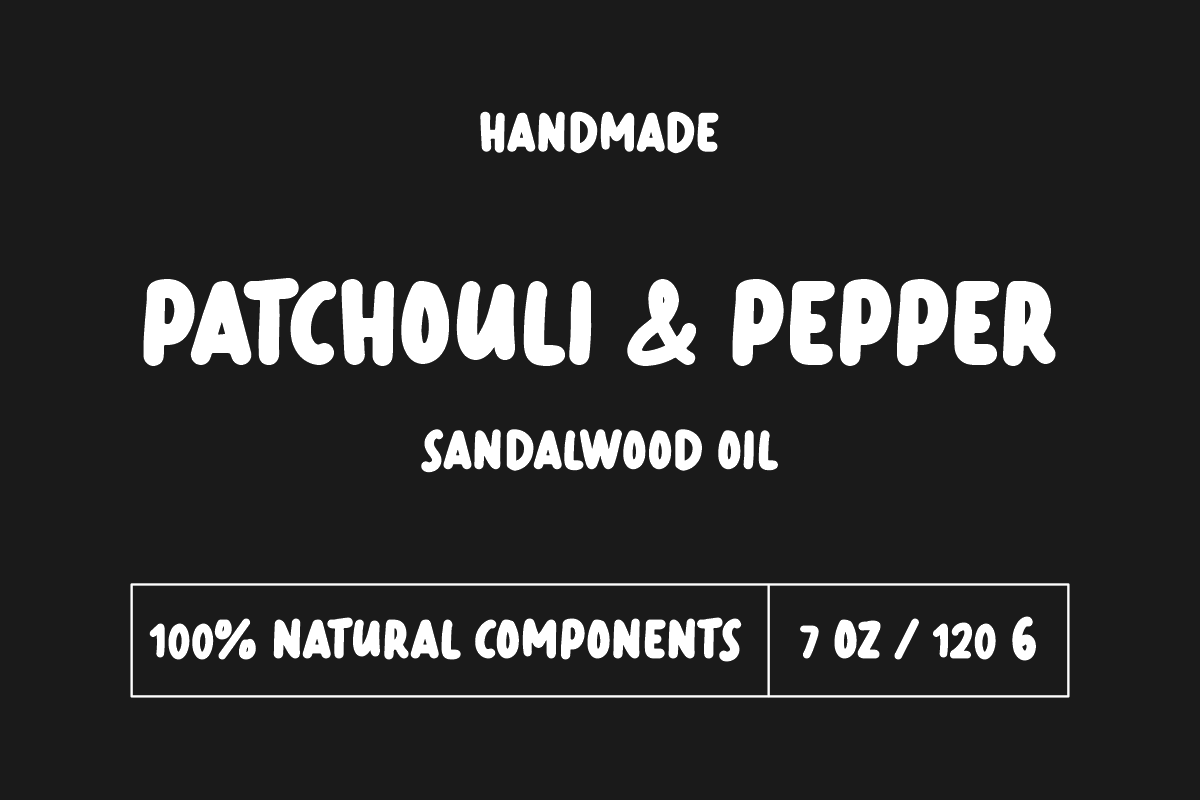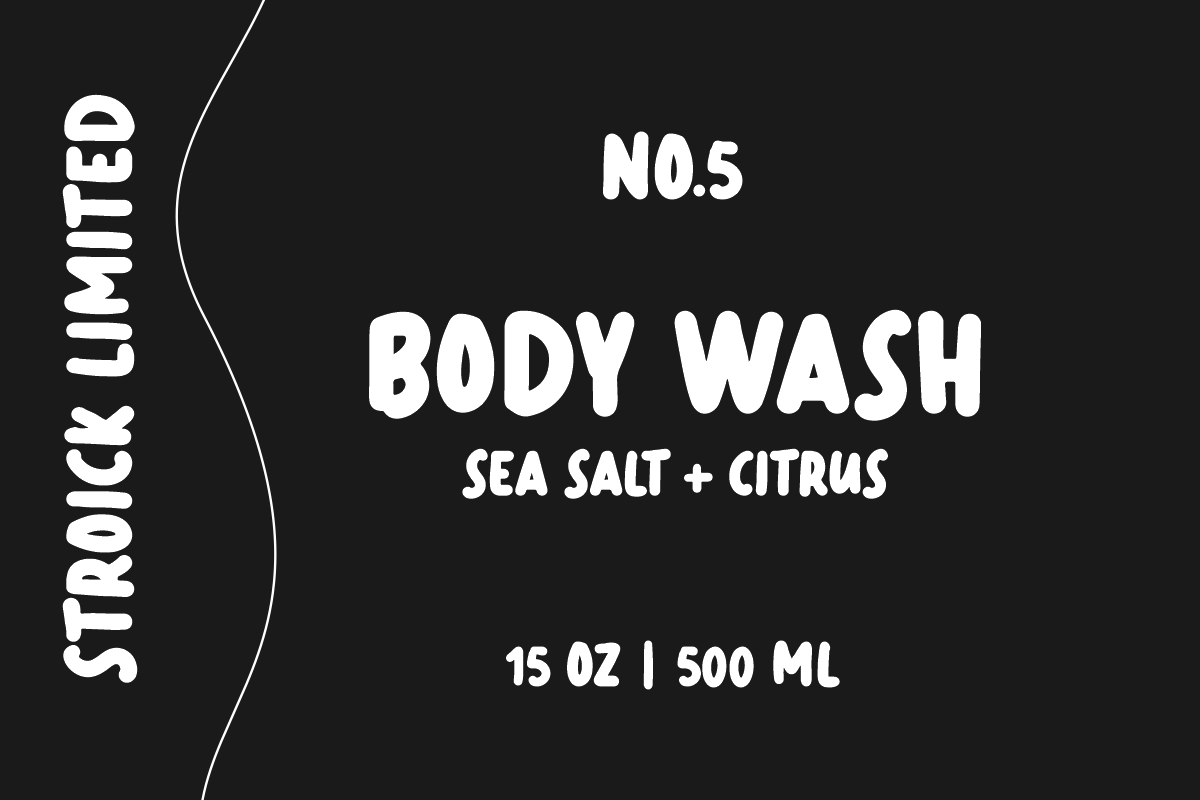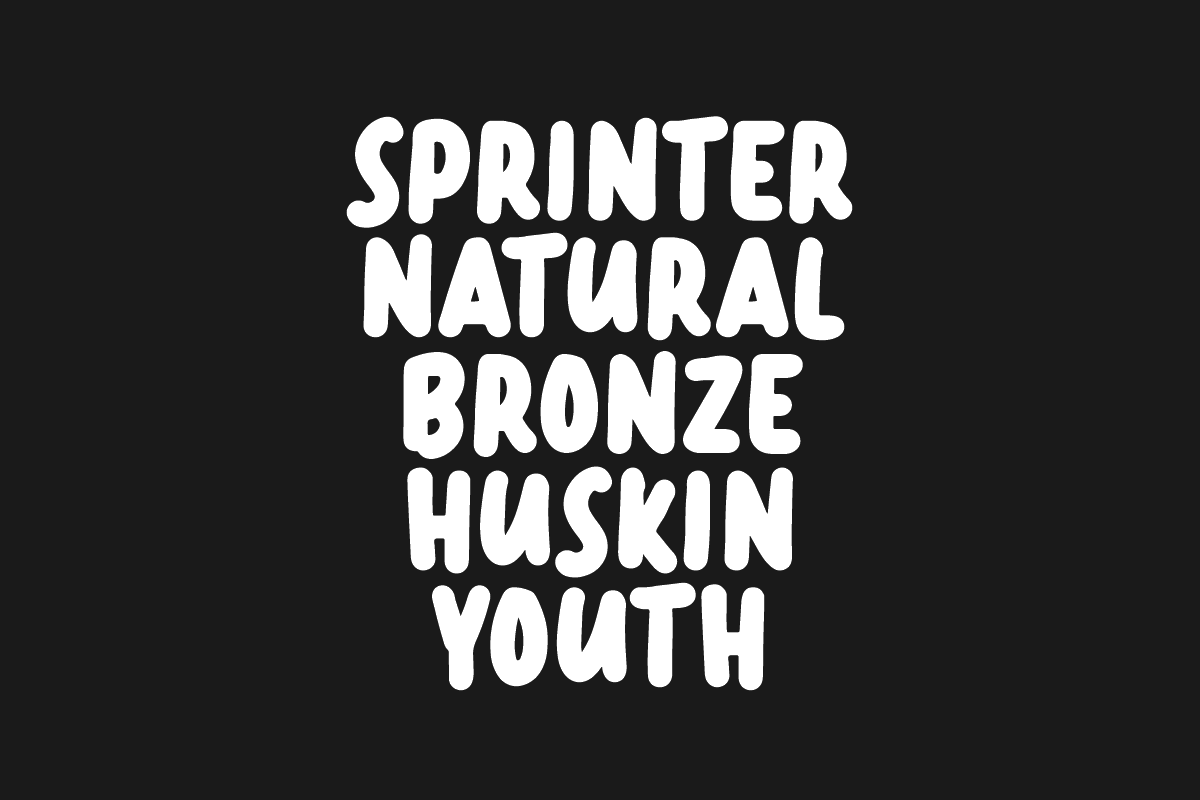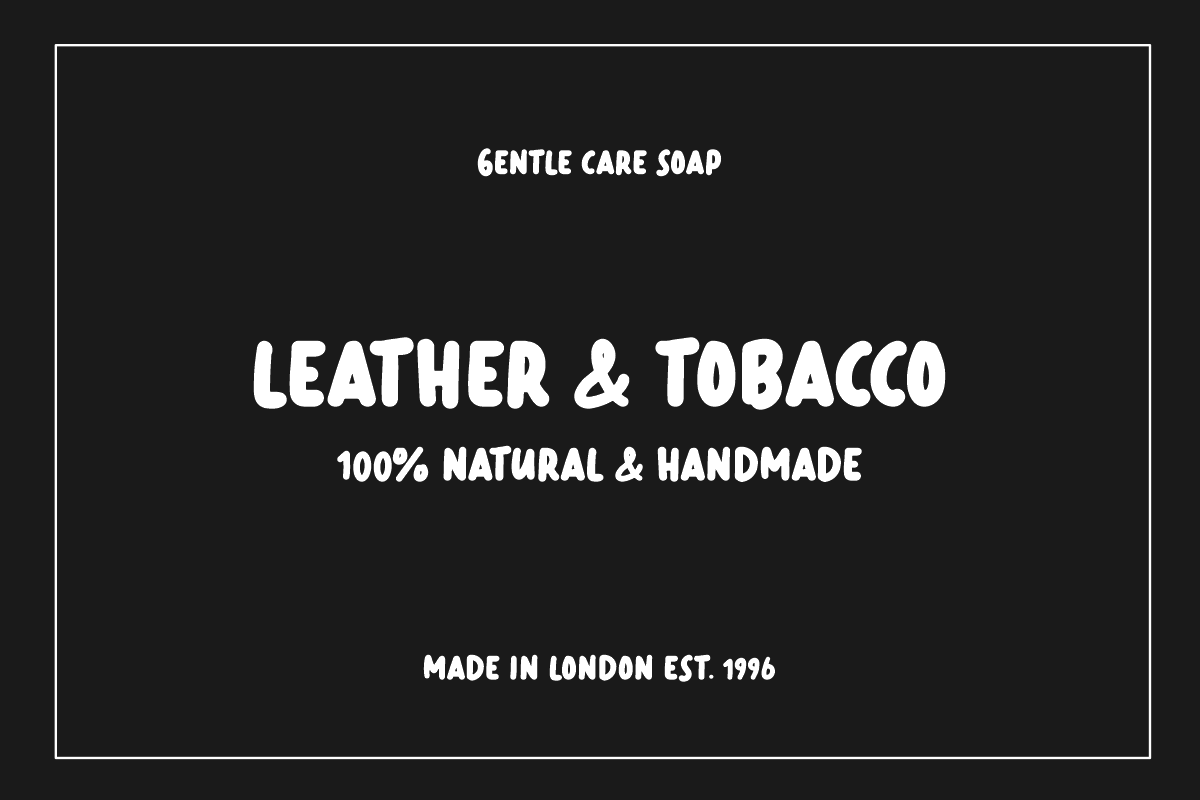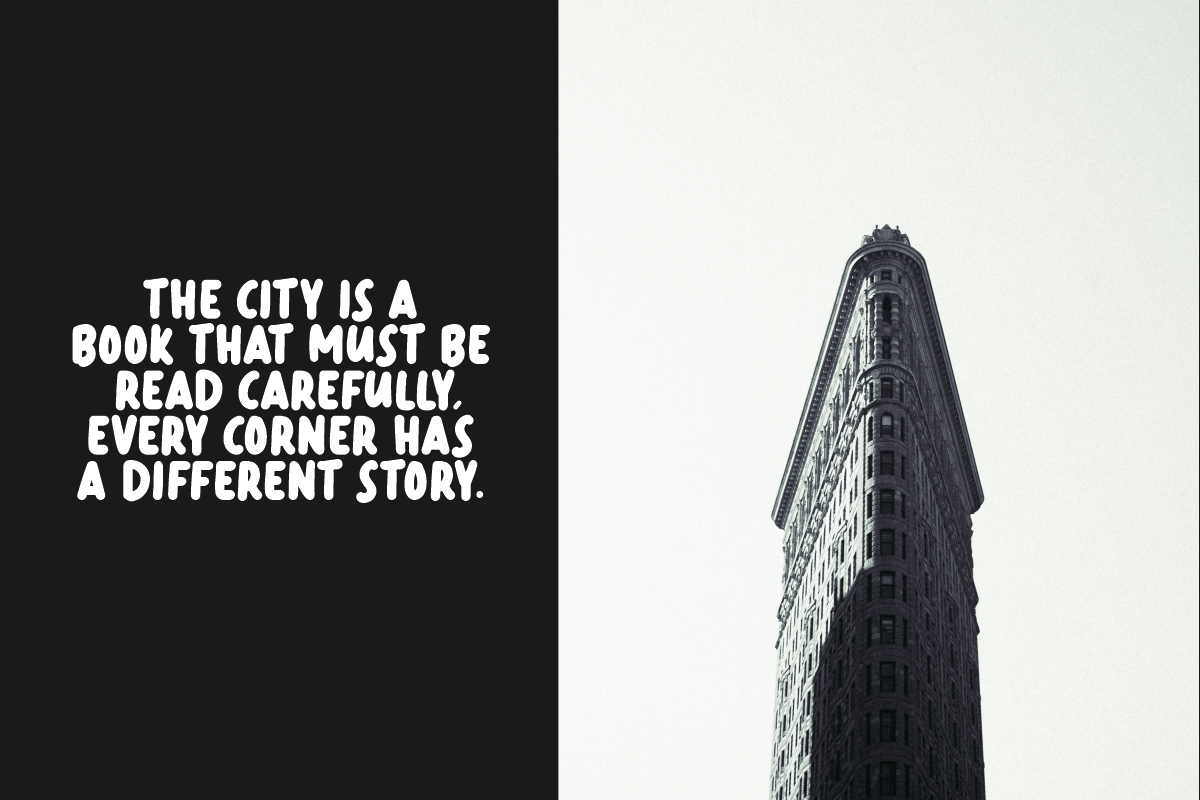
Forster’s Behaviour
Forsters Behavior is an organic, hand-written display font that brings strong, expressive character to your designs. With capital letters, this font gives a bold and bold impression, perfect for projects that need a strong, prominent message.
Its signature handwriting gives each design a unique and personal touch. Its organic lines provide a natural, warm feel, adding unique dimension and character to your text.
Forsters Behavior is suitable for large titles, posters, logo designs, flyers, and various other creative projects that require a striking and distinctive appearance. With its uniqueness and warmth, this font will give a unique and charming touch to each of your design works.